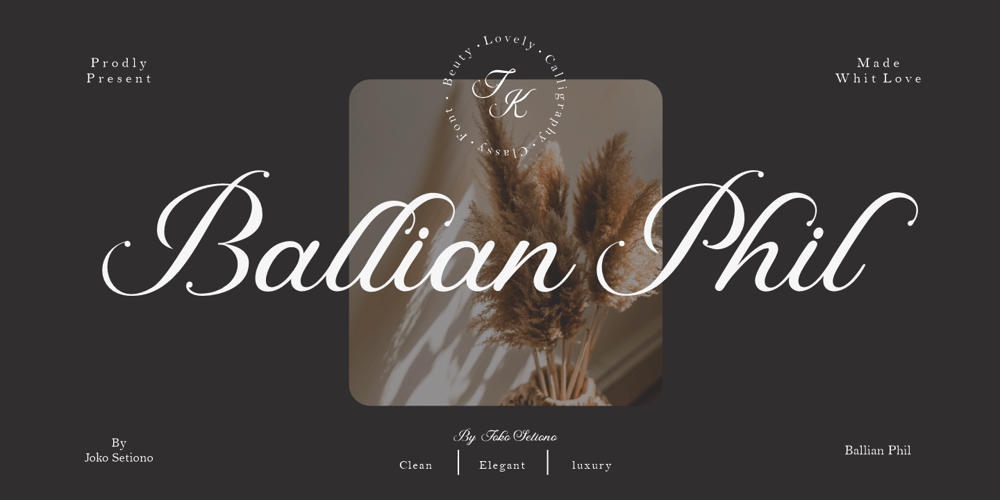
Ballian Phil
Ballian Phil font
Ballian Phil Font Family was designed by Joko Setiono and published by Arttype7. Ballian Phil contains 1 styles and family package options. Introducing Ballian Phil, a scripted font with perfect fonts. equipped with an elegant strap, adding to the natural impression and neatness of your writing. Handwritten with the perfect slant like a beautiful signature, the Ballian Phil is perfect for invitations, branding and editorial design, logos.